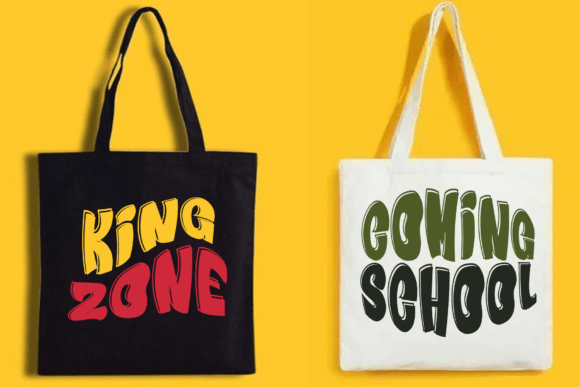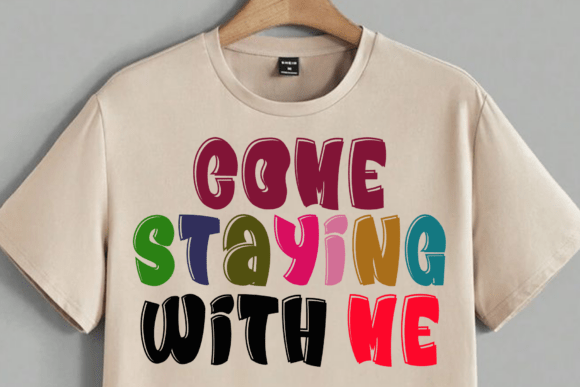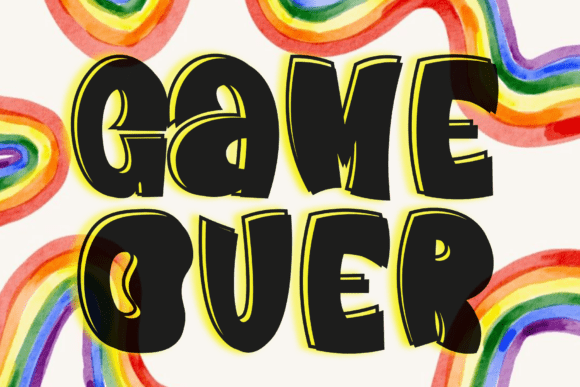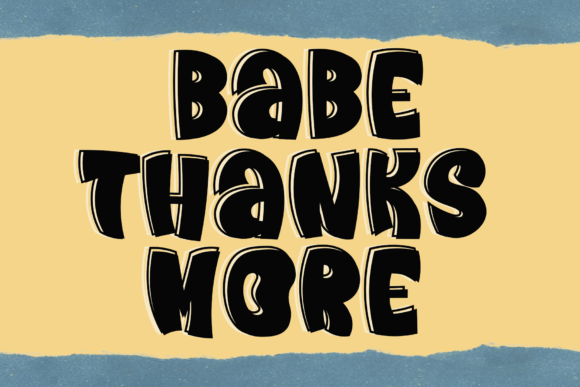
Introduction to Skena Font Font
Fonts play a crucial role in design, and the Skena Font font is a typeface that brings both character and versatility to any project. Whether you’re working on a branding project, a website, or a print design, the Skena Font font offers a unique style that can elevate your work.
Skena is a bold, street-style display font that bursts with energy and graffiti-inspired attitude.
Featuring chunky, exaggerated letterforms with tight curves and angular edges, it combines a strong urban vibe with a playful twist The vibrant gradient and black outline enhance its high-impact look, making it ideal for youth-centric designs, hip-hop culture, skate brands, posters, and digital art.
The Skena Font font is more than just a typeface – it’s a design tool that helps you communicate your message with style and clarity. Its unique character set and versatile design make it suitable for a wide range of applications, from elegant invitations to bold headlines.
With its carefully crafted letterforms and balanced proportions, the Skena Font font ensures readability and visual appeal across all mediums.
The Skena Font font stands out with its unique design, exceptional readability, and versatility across various design applications.